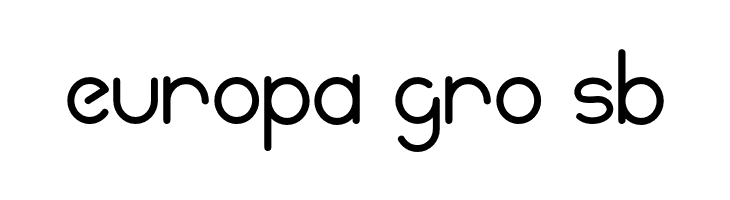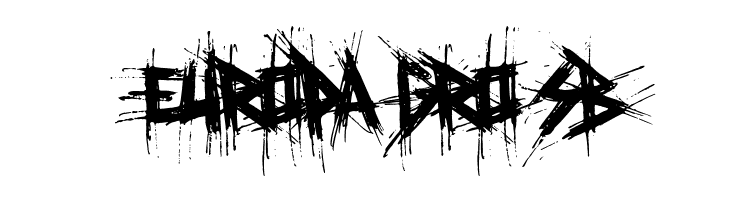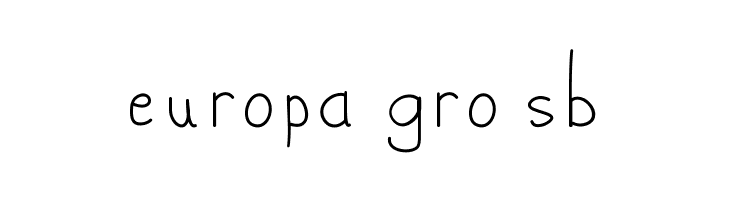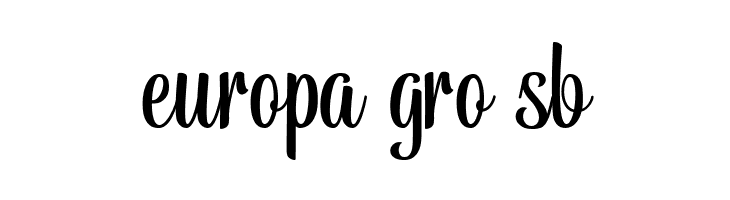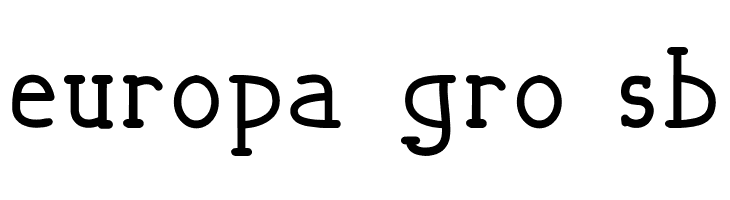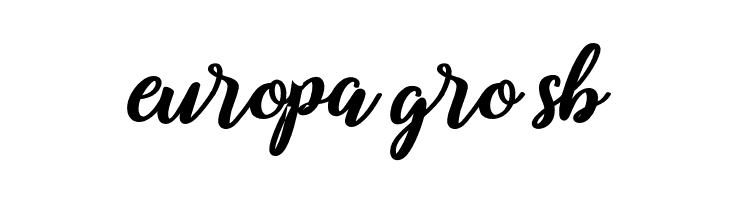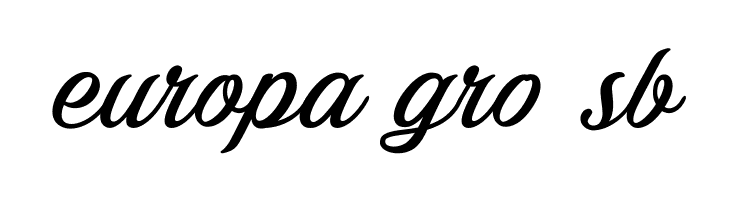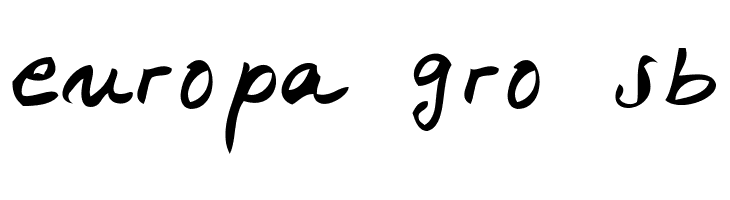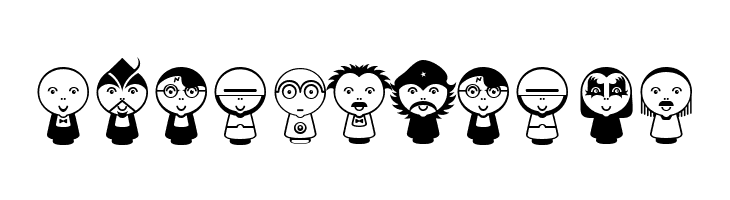
A modern, rounded font with a clean and approachable style.
A modern, rounded sans-serif font with clean lines and geometric structure.
A distressed, chaotic font with sharp, jagged edges and a rebellious aesthetic.
A playful, hand-drawn font with tall, narrow letters and a whimsical style.
A lively and elegant script font with smooth, flowing curves.
A playful, rounded font with smooth curves and a friendly appearance.
A flowing, cursive script font with elegant loops and flourishes.
A flowing, cursive font with elegant, sweeping strokes.
A dynamic, expressive handwritten font with fluid strokes.
Cartoon character dingbat font with bold, rounded illustrations.